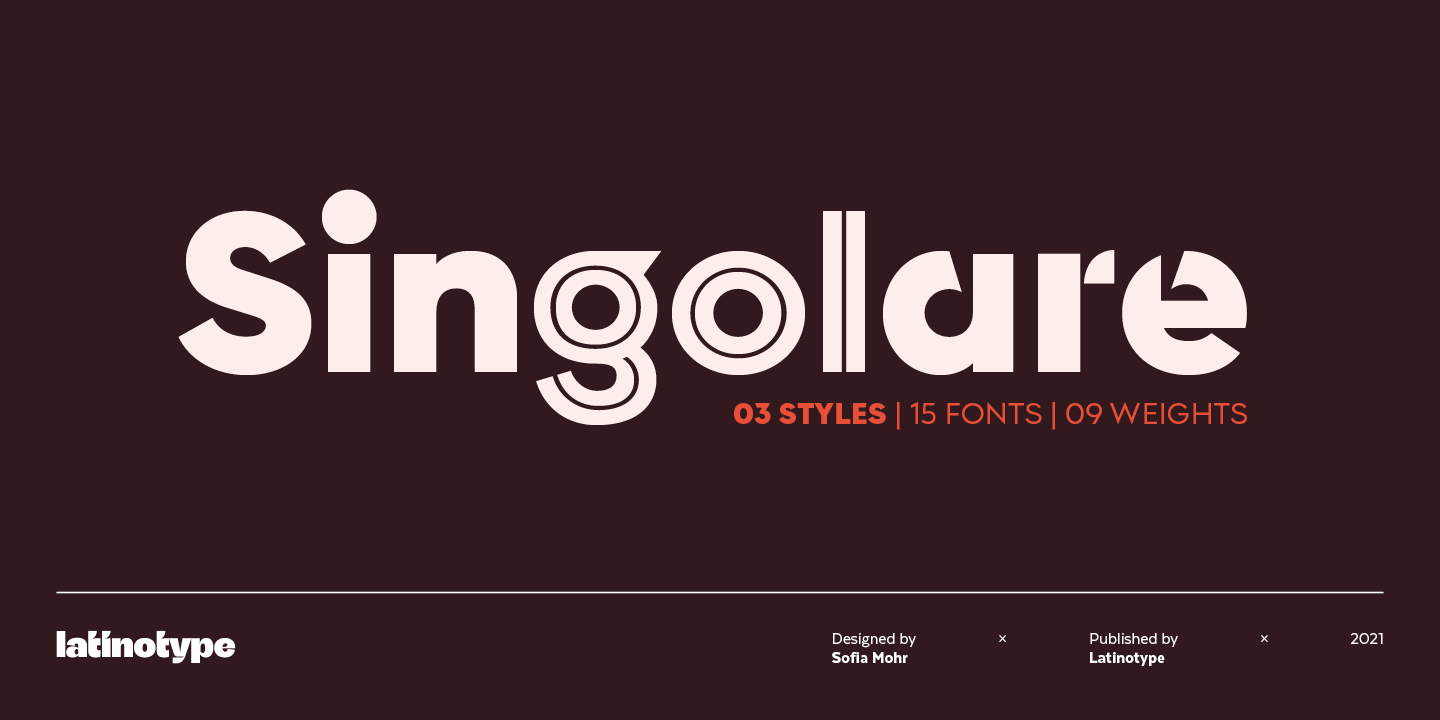
Singolare Font excels in various design applications including unique brand identities, distinctive artistic logos, singular gallery materials, exclusive boutique signage, individual creative projects, one-of-a-kind editorial layouts, exceptional advertising campaigns, and remarkable cultural communications. This distinctive typeface adapts uniquely to both singular digital platforms and exclusive print materials, making it perfect for designers seeking individual authenticity and singular sophistication in their visual communications.
Singolare Font generates excitement among design professionals due to its unique character and distinctive styling that instantly conveys individuality and exceptional creativity. The font's singular letterforms and distinctive proportions create an immediate sense of exclusivity and artistic uniqueness. Its individual personality makes it particularly appealing for brands wanting to communicate singularity, creative distinction, and exceptional quality in their visual identity.
The Singolare Font family includes multiple weights and styles such as Regular, Bold, Light, Unique, and Distinctive variations. Each family member maintains singular design principles while offering distinct individual characteristics. The Light weight provides subtle unique elegance for refined applications, while the Distinctive version delivers maximum impact for singular headlines and exceptional brand statements.
Creative designers frequently choose Singolare Font Free Download for projects requiring both unique authenticity and distinctive excellence. This typeface demonstrates remarkable effectiveness across creative industries including art galleries, exclusive boutiques, individual artists, and distinctive brands. Its singular character allows organizations to communicate exceptional creativity while maintaining excellent readability and unique visual appeal that stands out from conventional typography and celebrates individual artistic expression.